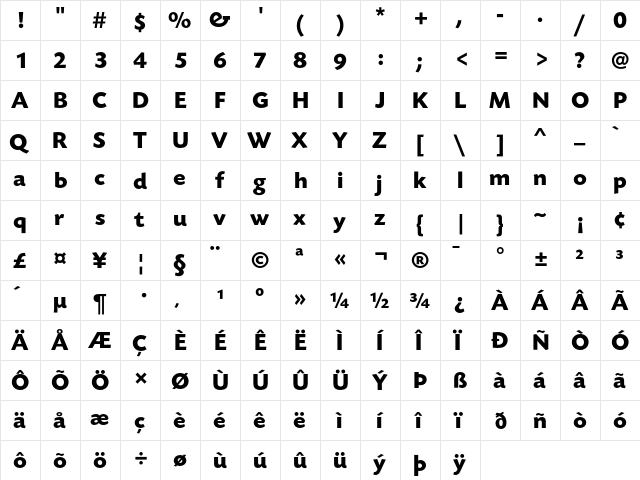
TodaySB-Bold Regular
Design Context for TodaySB-Bold Typeface
TodaySB-Bold offers clean, dependable letterforms without strong stylistic allegiance, making it a practical choice for designers who need flexibility. Its bold stroke weight gives it real presence on the page.